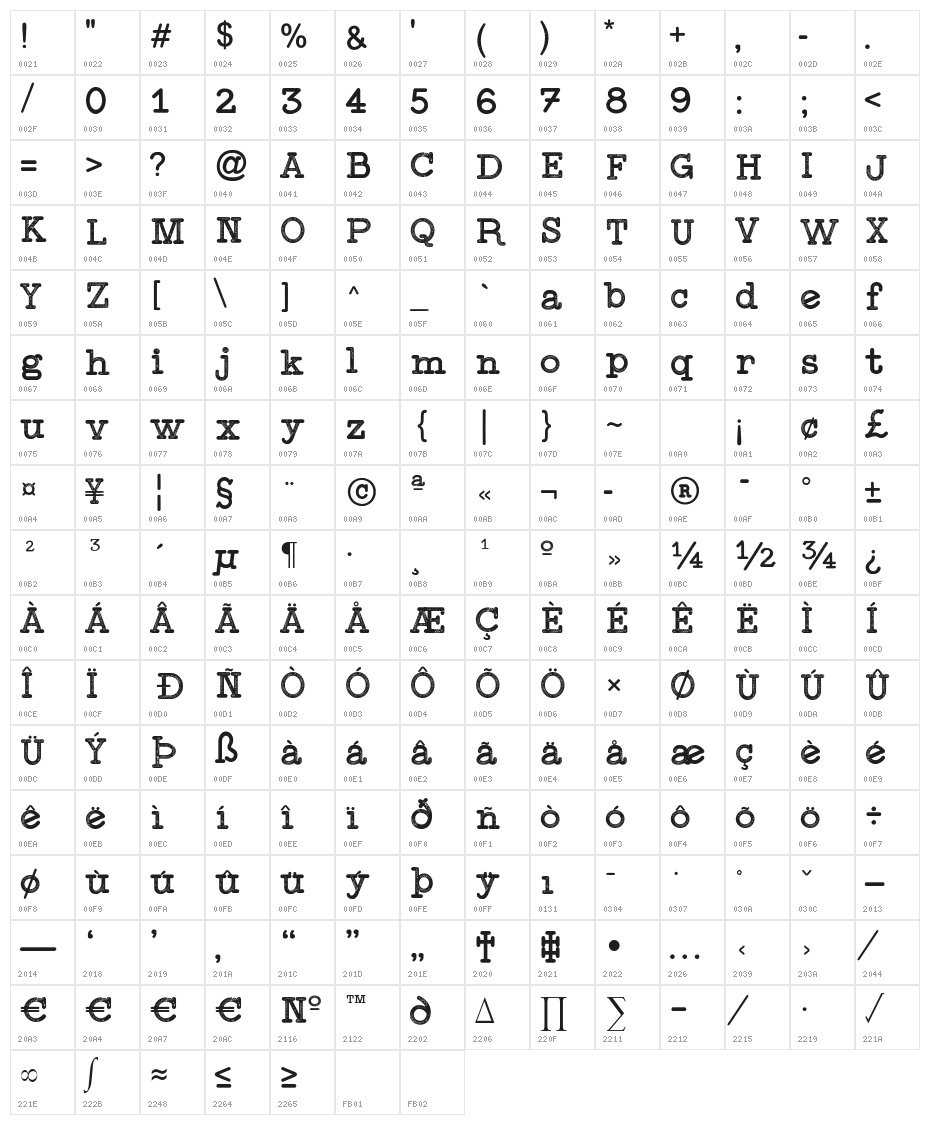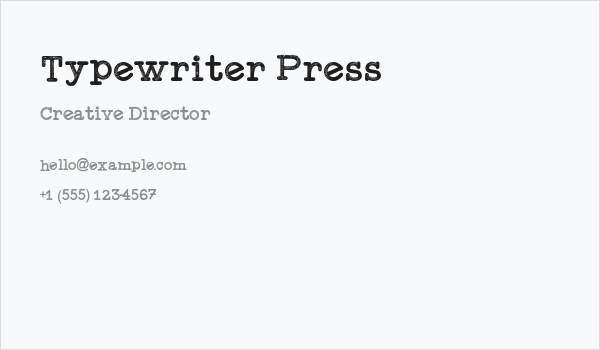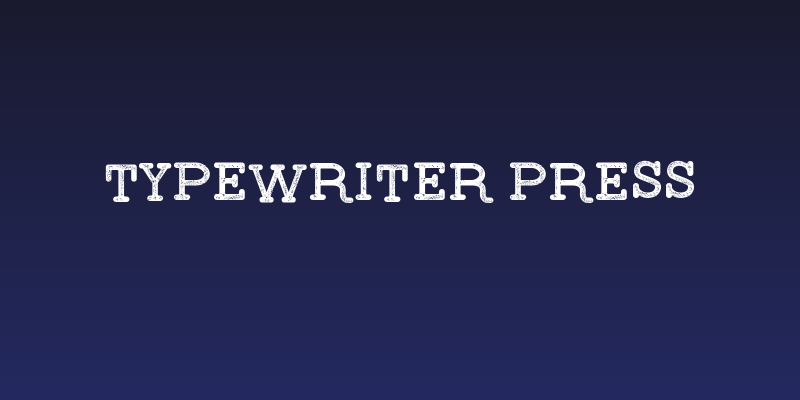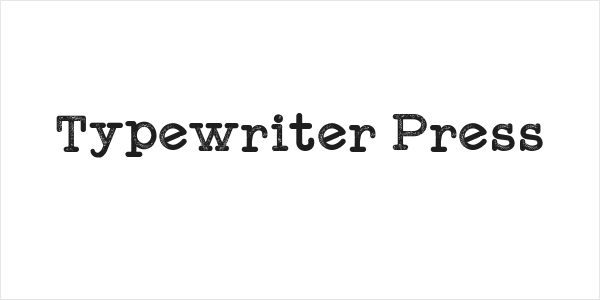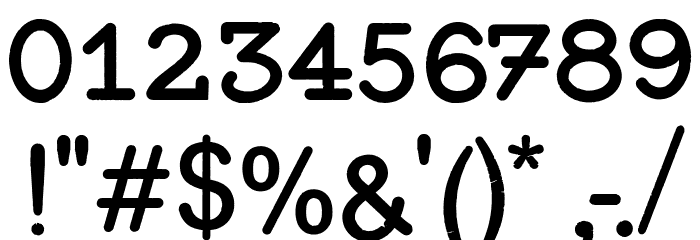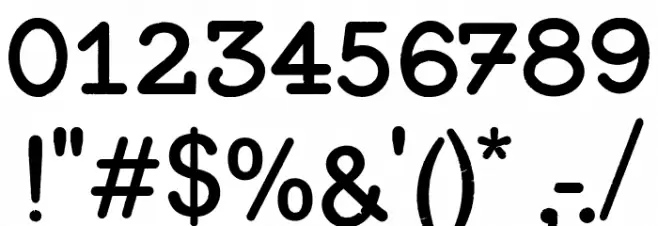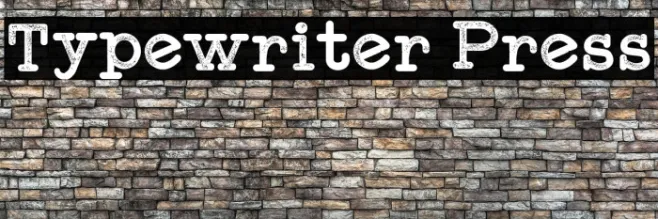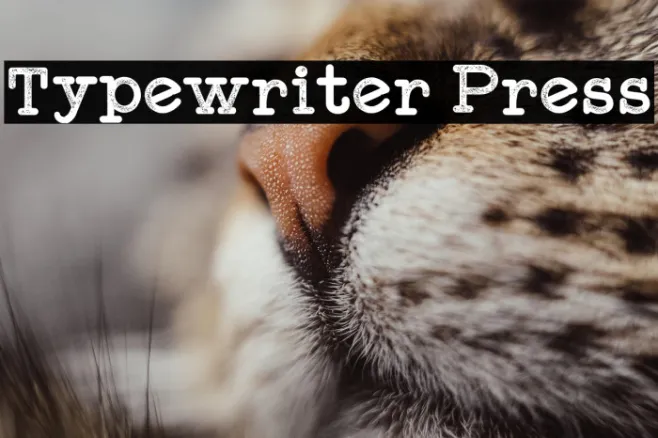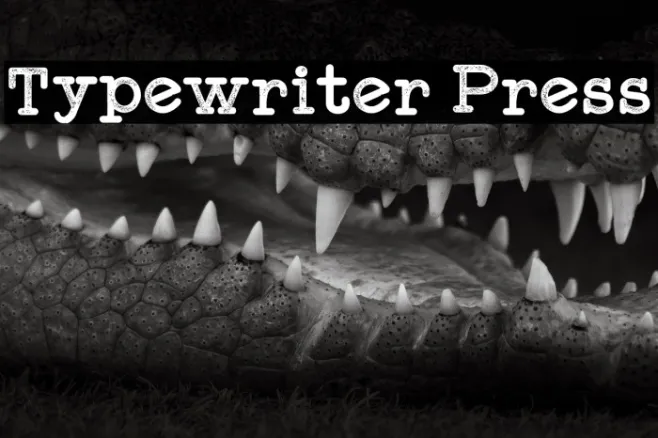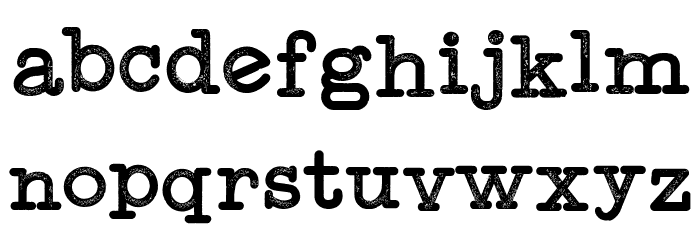
Typewriter Press Font
Typewriter Press Description
This font exudes a vintage typewriter aesthetic, characterized by its monospaced, slab serif design. Each character is uniformly spaced, reminiscent of classic typewriter text, with a slightly distressed texture that adds an authentic, worn look. The uppercase and lowercase letters maintain a consistent style, with rounded edges and thick strokes that convey a sense of solidity and reliability. The numerals and special characters are equally robust, ensuring clarity and legibility. This font is ideal for projects that require a retro or nostalgic feel, such as vintage-themed designs, typewriter art, or historical documents.
| Use Case | Headlines, Logos, Decorative text |
| Proposed Projects | Ideal for vintage-themed designs, typewriter art, historical documents, and retro branding. |